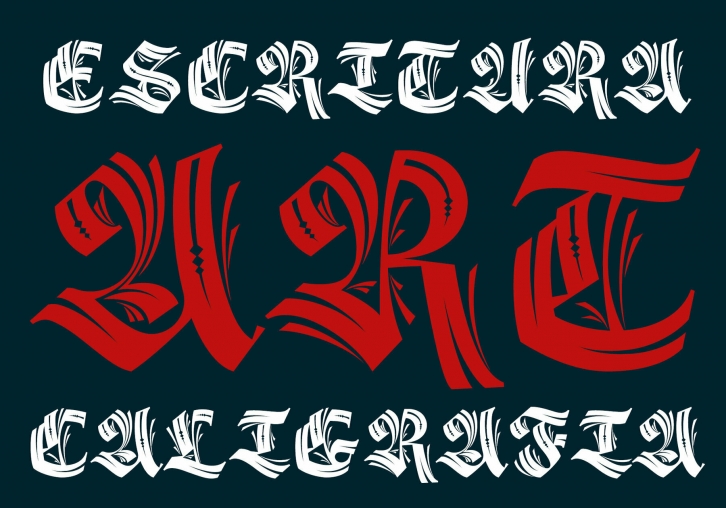
Origen is a typeface inspired by the illuminated manuscripts whereby the text is accompanied by a decorative capital letter at the start of the text. Origen is a hybrid between Textura and Rotunda fonts, characterized by a dynamic calligraphic flow. Origen is also playful as it can be use in editorial, advertising and packaging designs to capture viewers' attention through refined details.